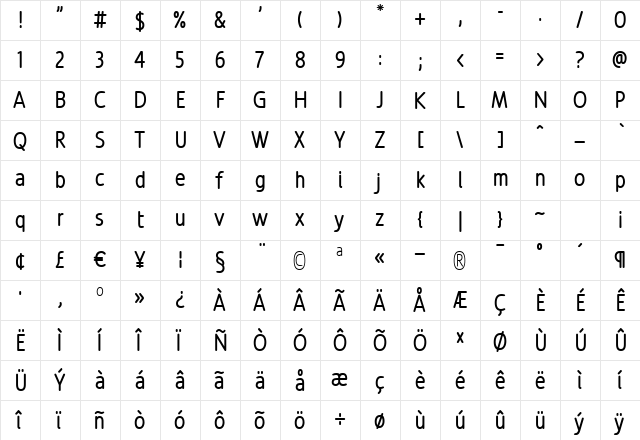
Revalo ModernRegular Regular
Design Context for Revalo ModernRegular Typeface
Revalo ModernRegular is a composed and adaptable typeface that performs quietly and consistently across a wide range of design contexts.